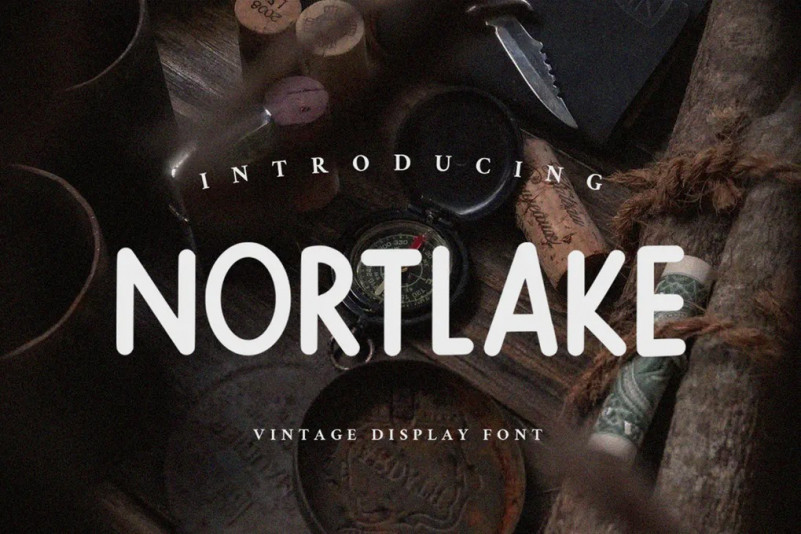
Northlake Font
Nortlake Font is a vintage and retro font with a clear style and good flow This font is great for your next creative project such as Logotype, printed quotes, invitations, cards, product packaging, headers, Letterhead, Poster, Apparel Design, Label, and etc.